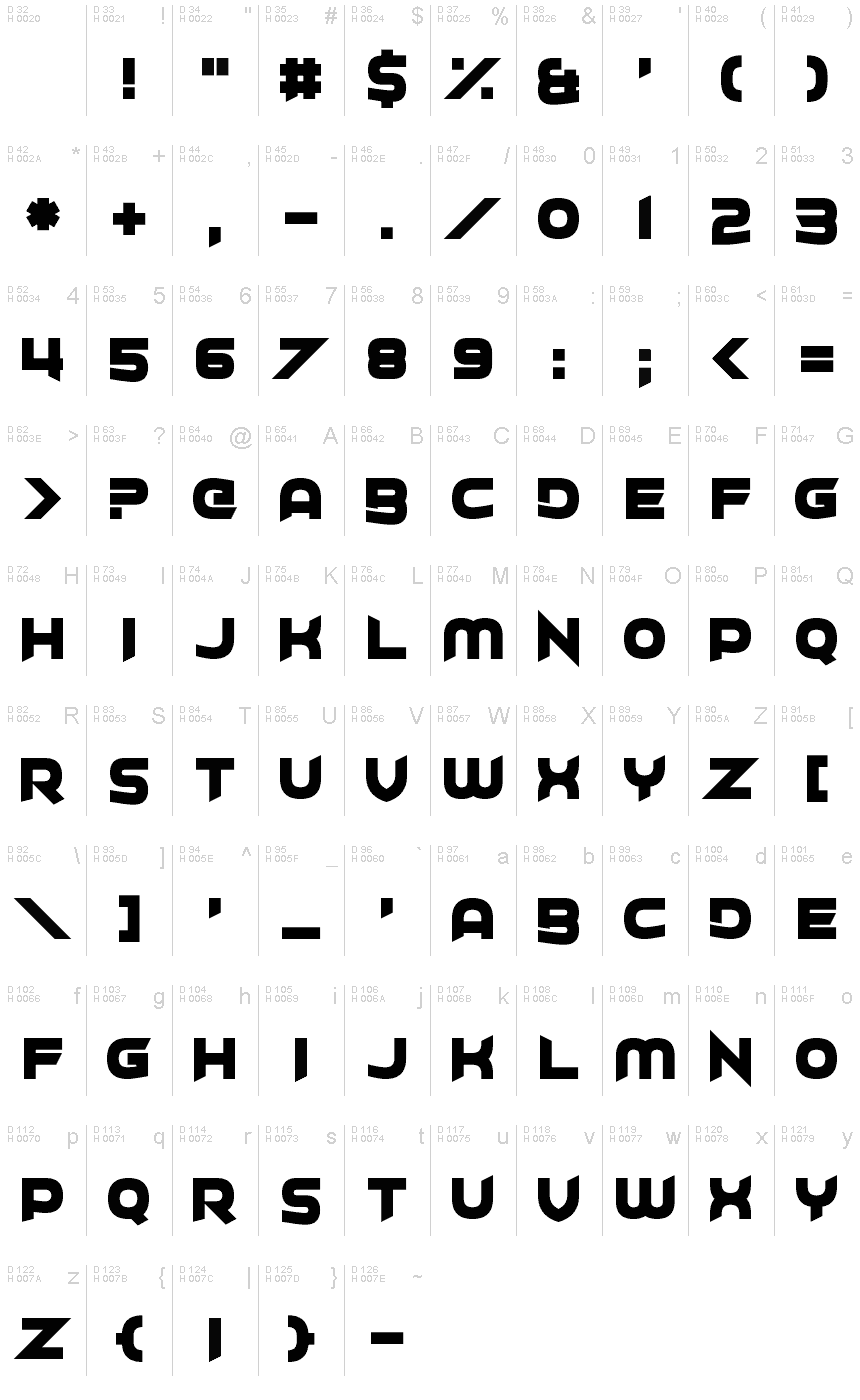
Project H
Project H is a bold and expansive font that exudes a commanding presence. Its geometric letterforms and angular strokes convey a sense of strength and modernity. The expanded width adds a striking visual impact, making it well-suited for headlines, posters, and other display-focused design applications. Project H's unique aesthetic lends itself to a range of contexts, from editorial layouts to branding and packaging.
Its assertive personality can effectively grab attention and make a lasting impression, making it a versatile choice for designers seeking to create impactful typographic statements.
Project H by Chequered Ink.